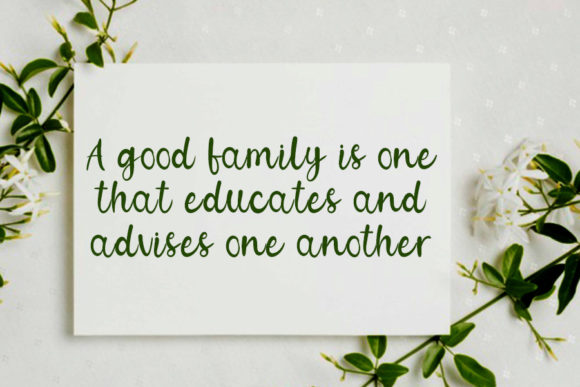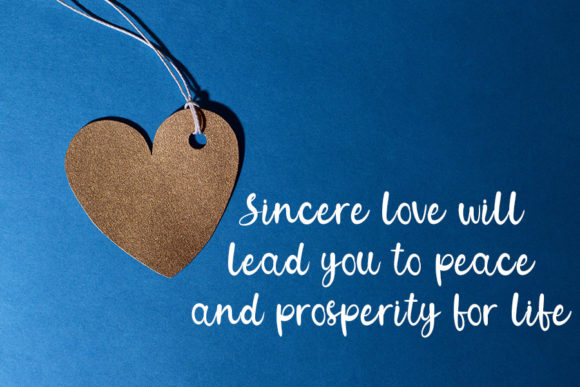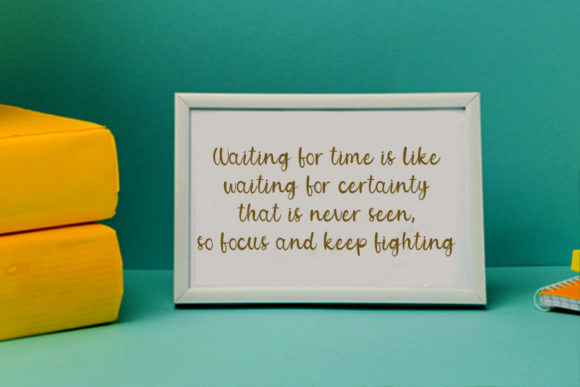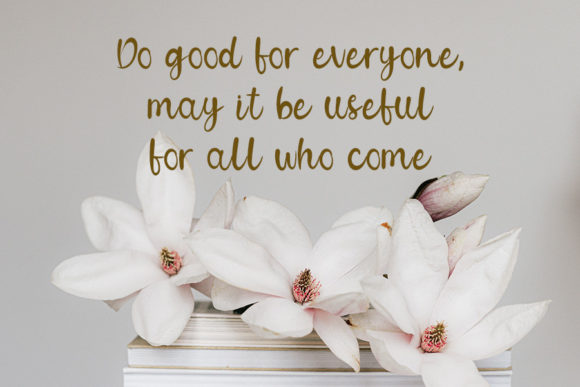
About Roses Font
RosesĀ is a delicate and elegant handwritten font. Its distinct and well balanced letters make this font a masterpiece. Fall in love with its incredibly versatile style and use it to create spectacular designs!